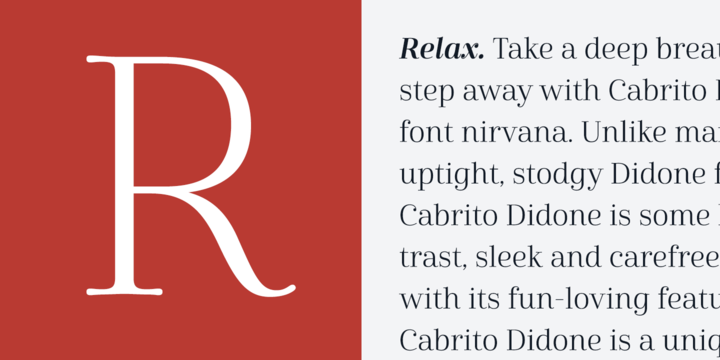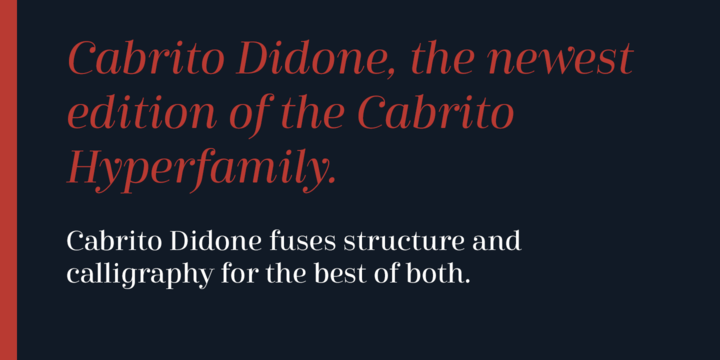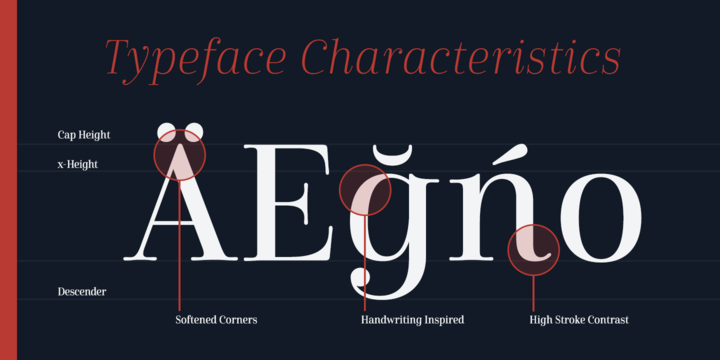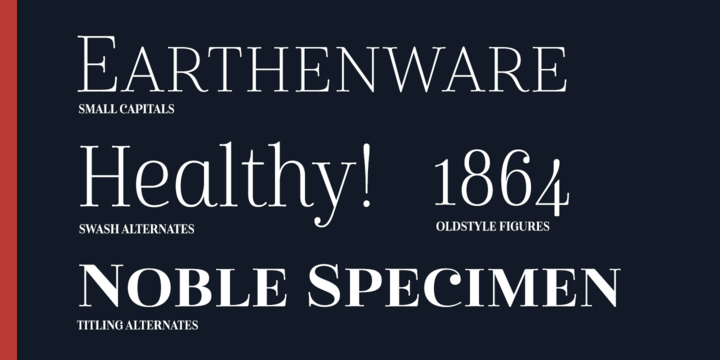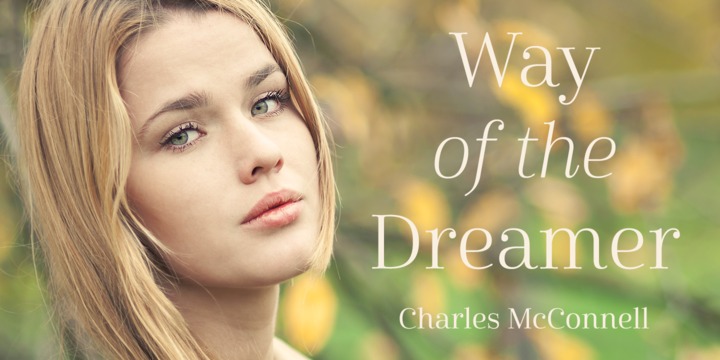
Cabrito Didone Font Family
A graceful kid if ever you’ve seen one, Cabrito Didone joins the Cabrito family of fonts–a family designed to provide young infants with clear recognition of letter forms. The original letters were released as part of the children’s book about fonts, The Clothes Letters Wear.